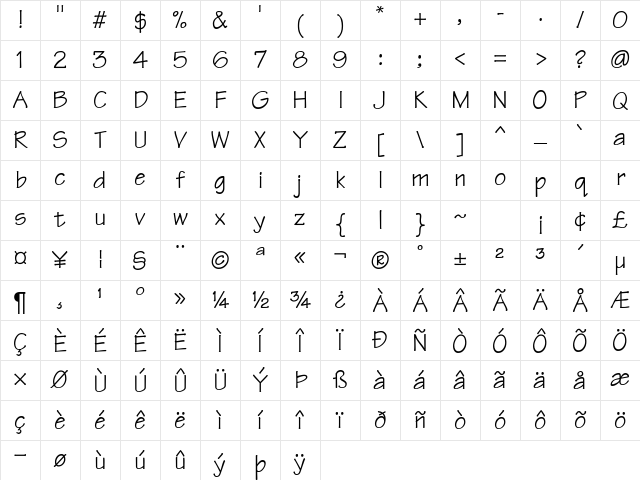
TriathlonDB Normal Free Font
TriathlonDB Normal
Design Context for TriathlonDB
TriathlonDB is a composed and adaptable typeface that performs quietly and consistently across a wide range of design contexts.